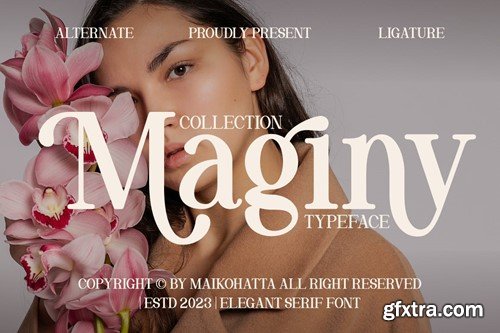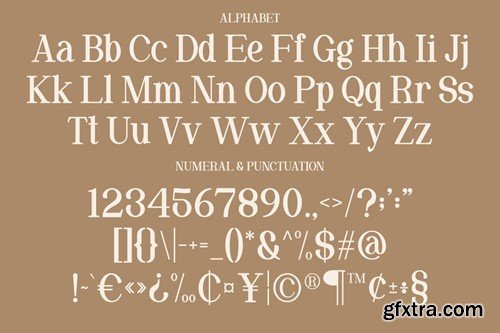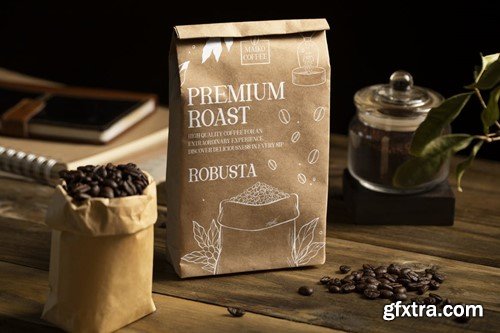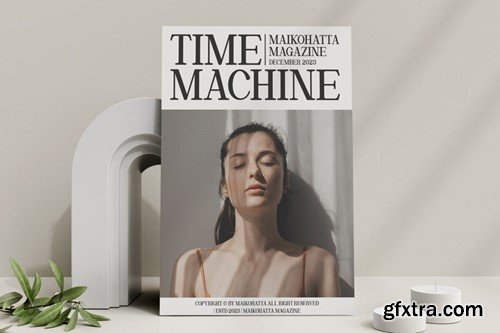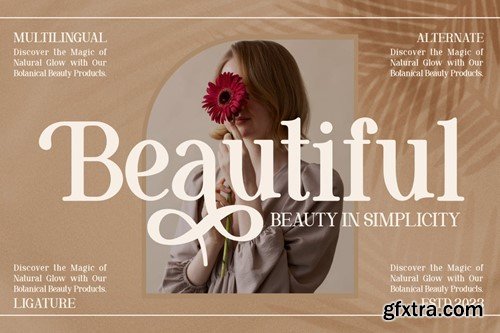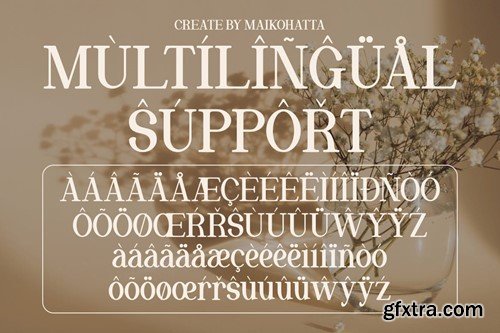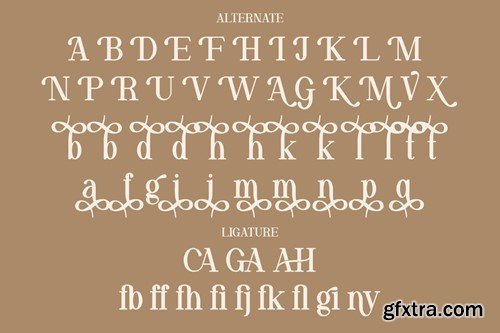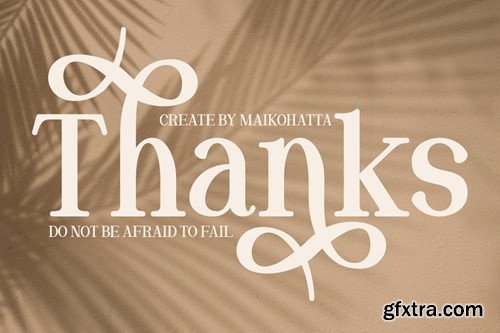
Maginy - Elegant Serif Font
Introducing our new product Maginy Elegant Serif Font This font is a type of letter that has special characteristics that create the impression of luxury, elegance and firmness. This font involves a series of design elements such as balanced thin and thick lines, gentle curves, and elegant and clean serifs. The sharp corners and fine details of each character create a highly aesthetic impression and exude an air of elegance. available